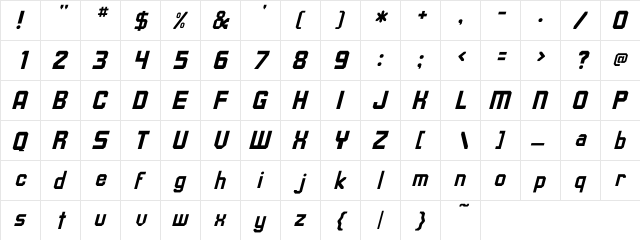
Upsilon Italic Regular
Design Context for Upsilon Italic Typeface
Upsilon Italic offers clean, dependable letterforms without strong stylistic allegiance, making it a practical choice for designers who need flexibility. The slanted form adds forward momentum and visual energy.